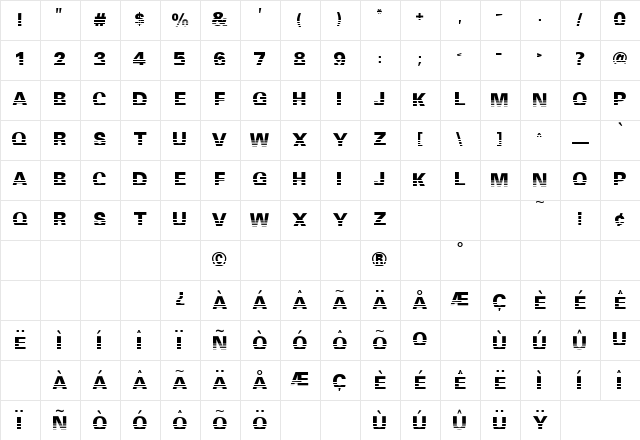
Ventilate Regular Free Font
Ventilate Regular
Design Context for Ventilate
Ventilate is a composed and adaptable typeface that performs quietly and consistently across a wide range of design contexts.